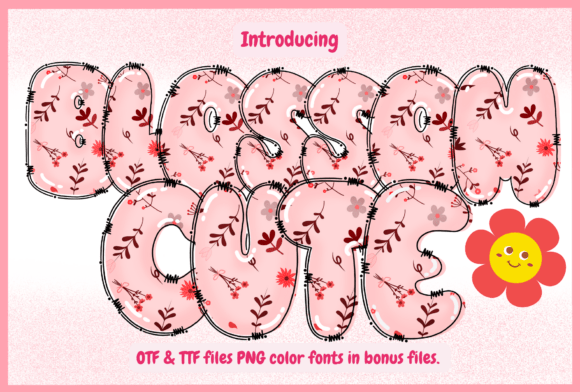
The Sweet Charm of Blossom Cute Font
A Font that Bursts with Charm
Blossom Cute Font is a delightful display font that is decorated with adorable floral patterns. It’s the perfect addition to any design project that needs a dose of fun and femininity. This font is ideal for kids’ products, girly branding, crafts, and anything that requires a playful touch.
- ✨ The font’s bubbly and vibrant personality is infectious and fun.
- ✅ The adorable floral patterns add a touch of whimsy to any design.
- 💕 The font’s charm is perfect for kids’ products, girly branding, and crafts.
- 🎉 It’s easy to use and pairs well with a variety of other fonts.
While Blossom Cute Font is an excellent choice for many design projects, there are a few things to keep in mind. 🤔
- ⚠️ The font’s playful personality may not be suitable for more formal or professional designs.
- ⚠️ Some of the font’s characters may not be suitable for use at smaller sizes.
- Experiment with the font’s OpenType features, such as glyphs and stylistic alternates, to add more variety to your design.
The Designer Inspiration Behind Blossom Cute Font
The designer behind Blossom Cute Font was inspired by the beauty of nature and the charm of floral patterns. The font’s creator wanted to create a font that was fun, playful, and perfect for kids’ products and girly branding. The result is a font that’s bursting with charm and personality.
A: Blossom Cute Font is a bubbly and vibrant display font that’s decorated with adorable floral patterns.
A: Blossom Cute Font is perfect for kids’ products, girly branding, crafts, and anything that needs a dose of fun and femininity.